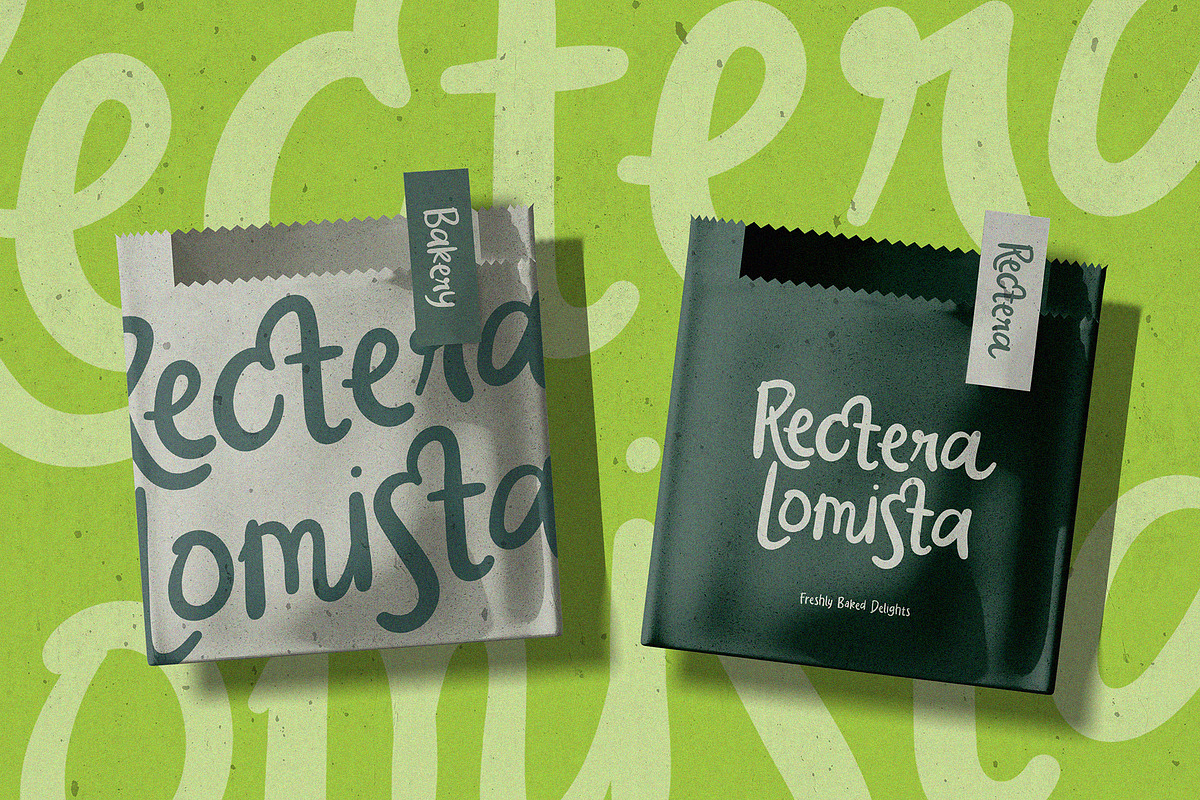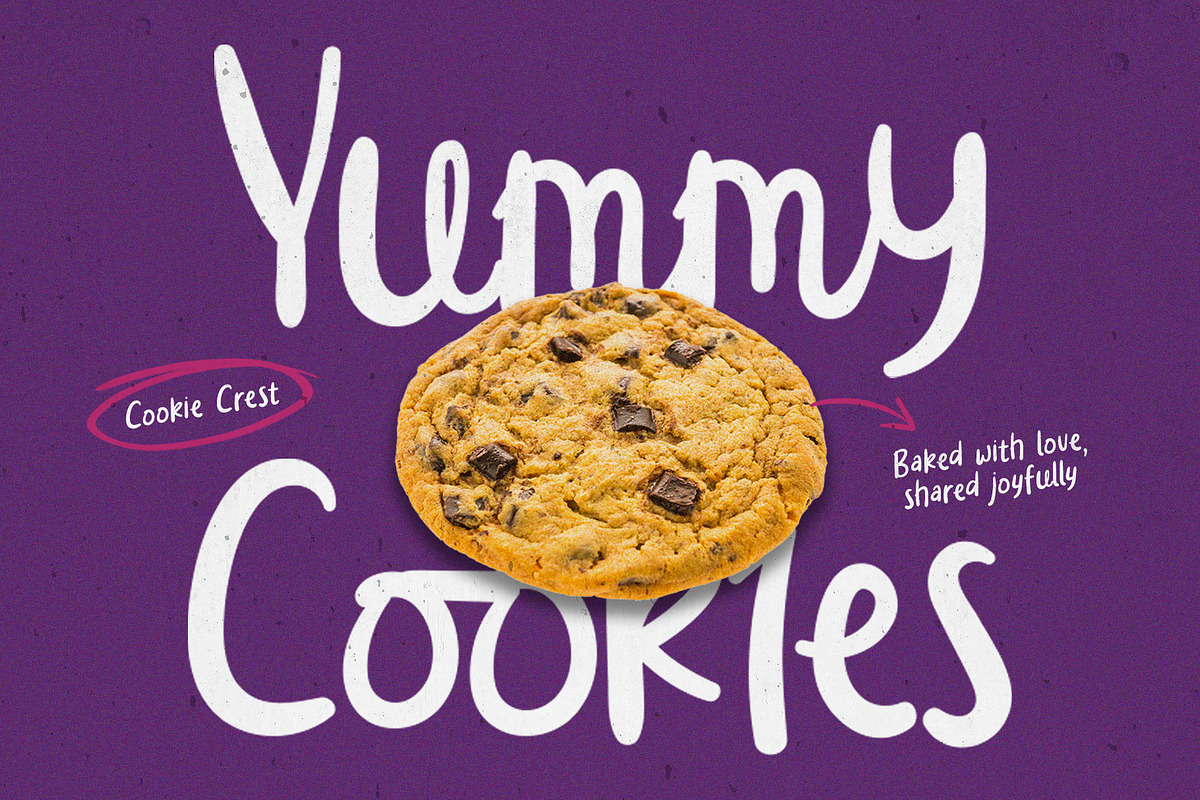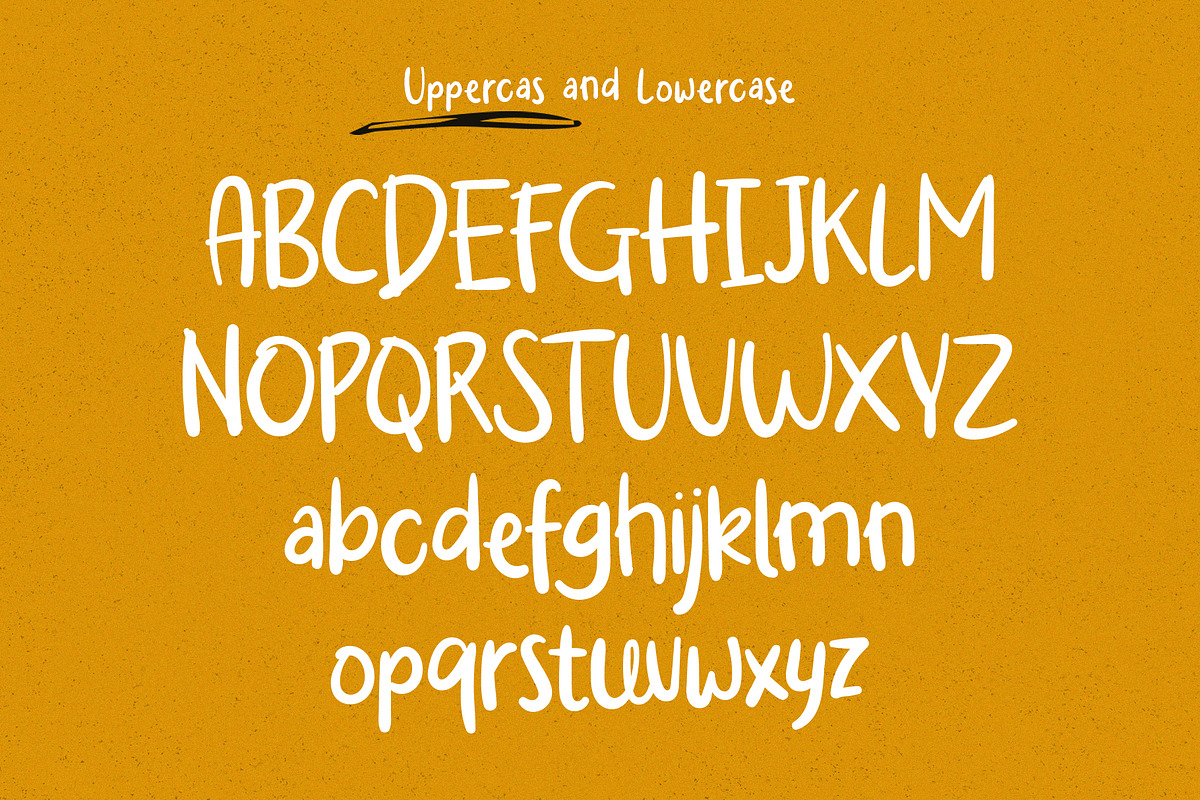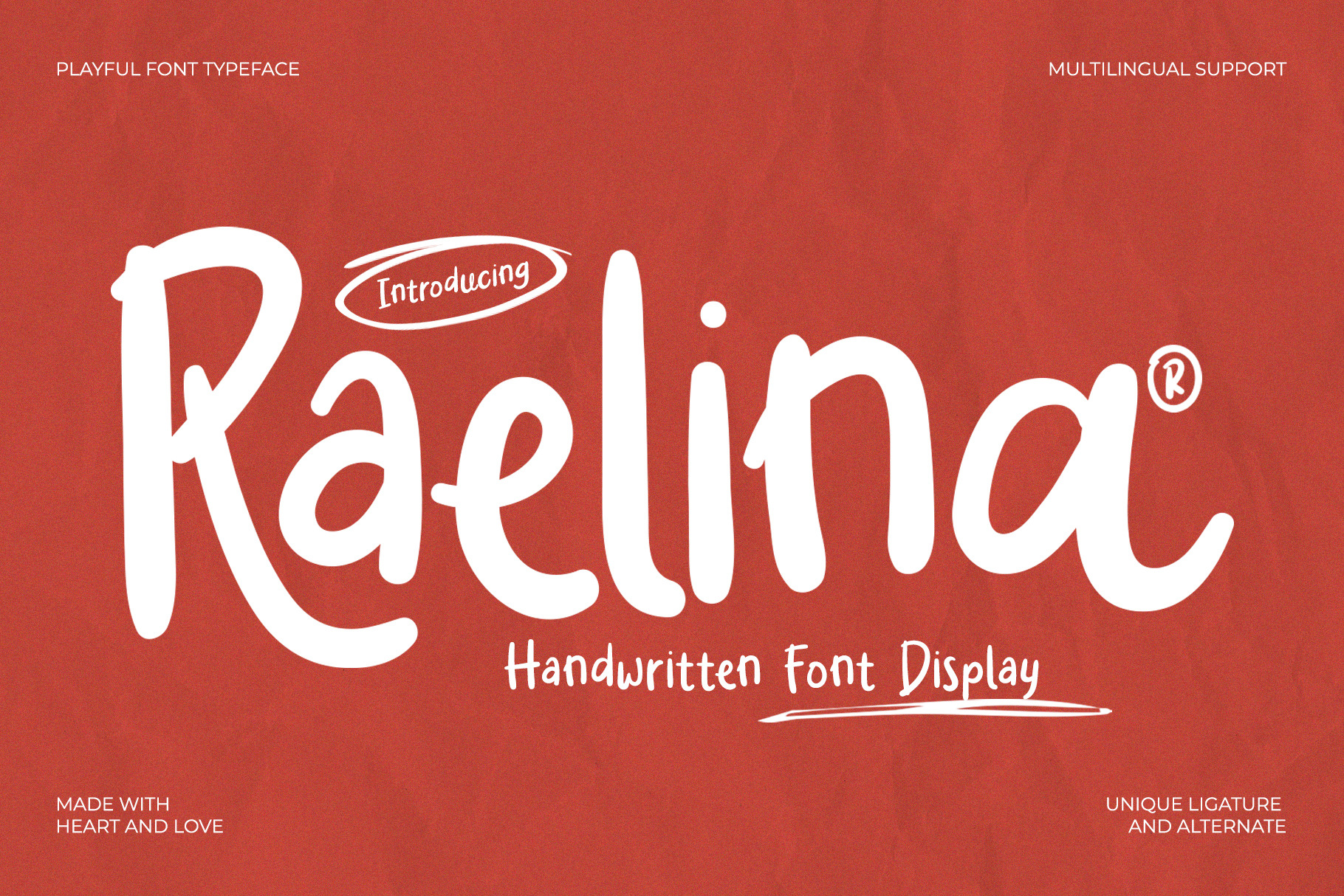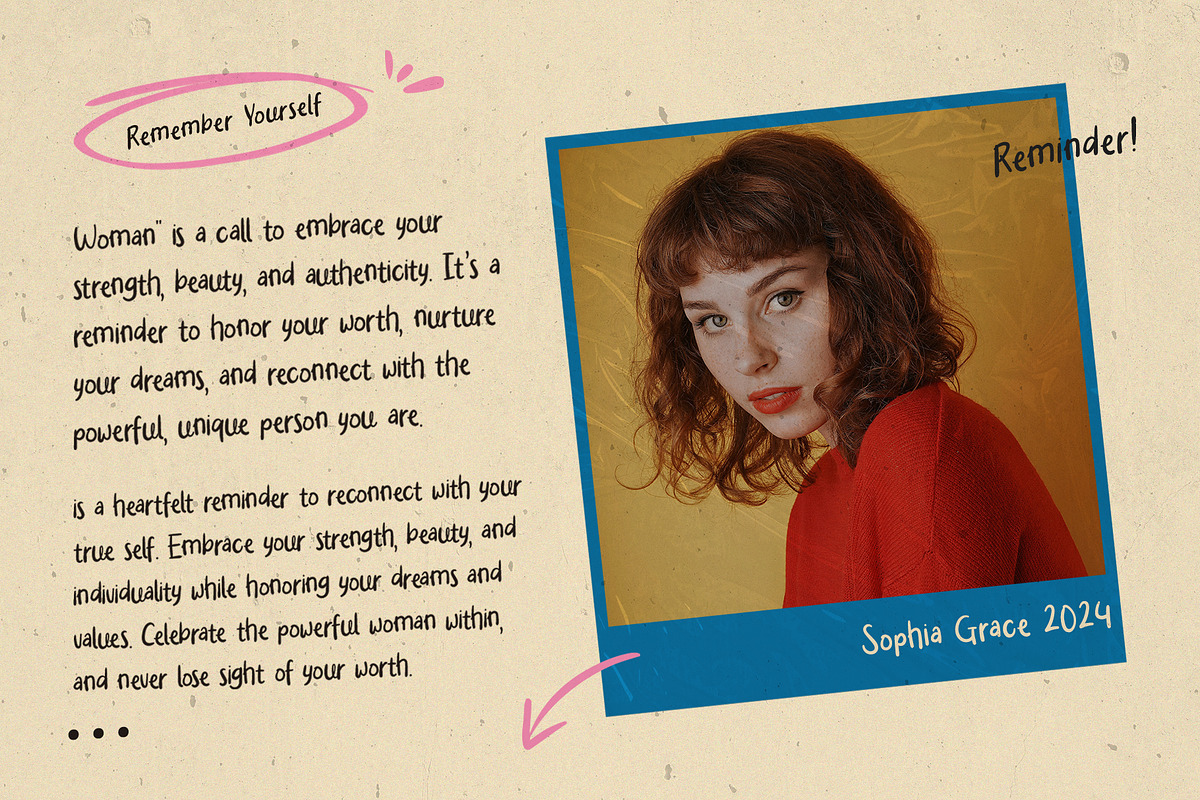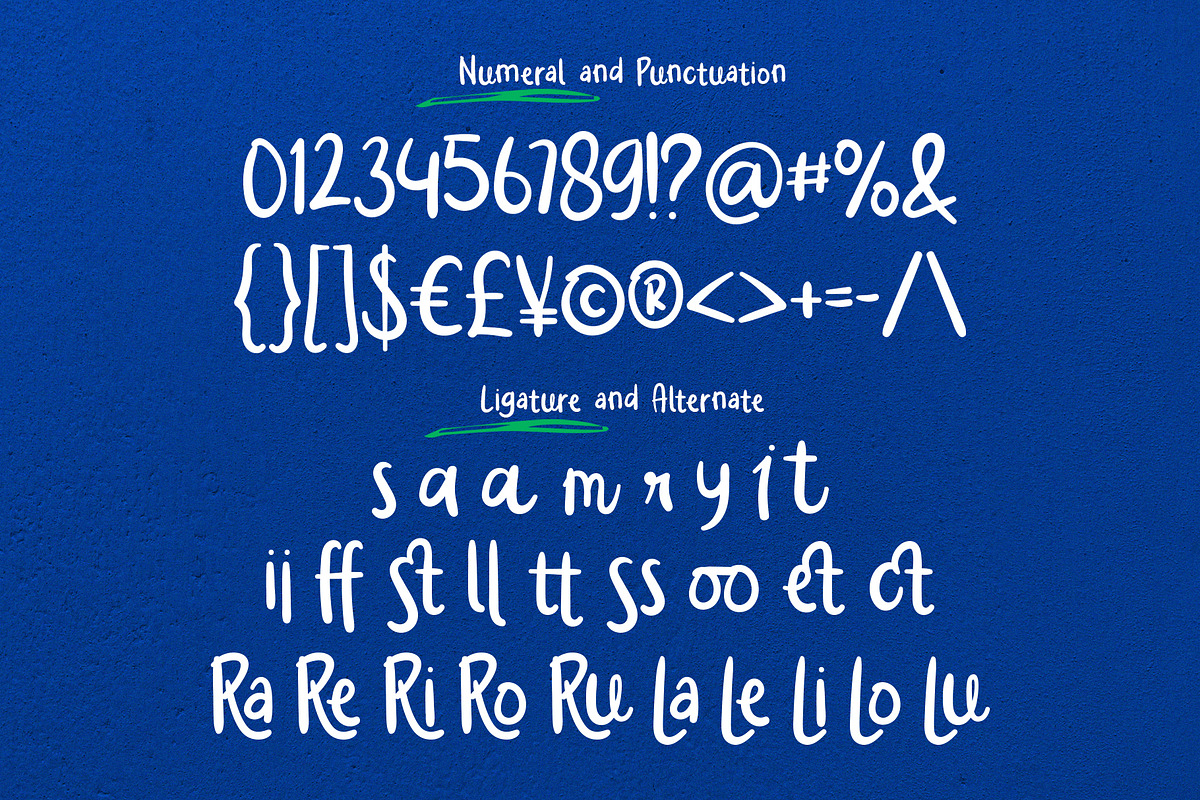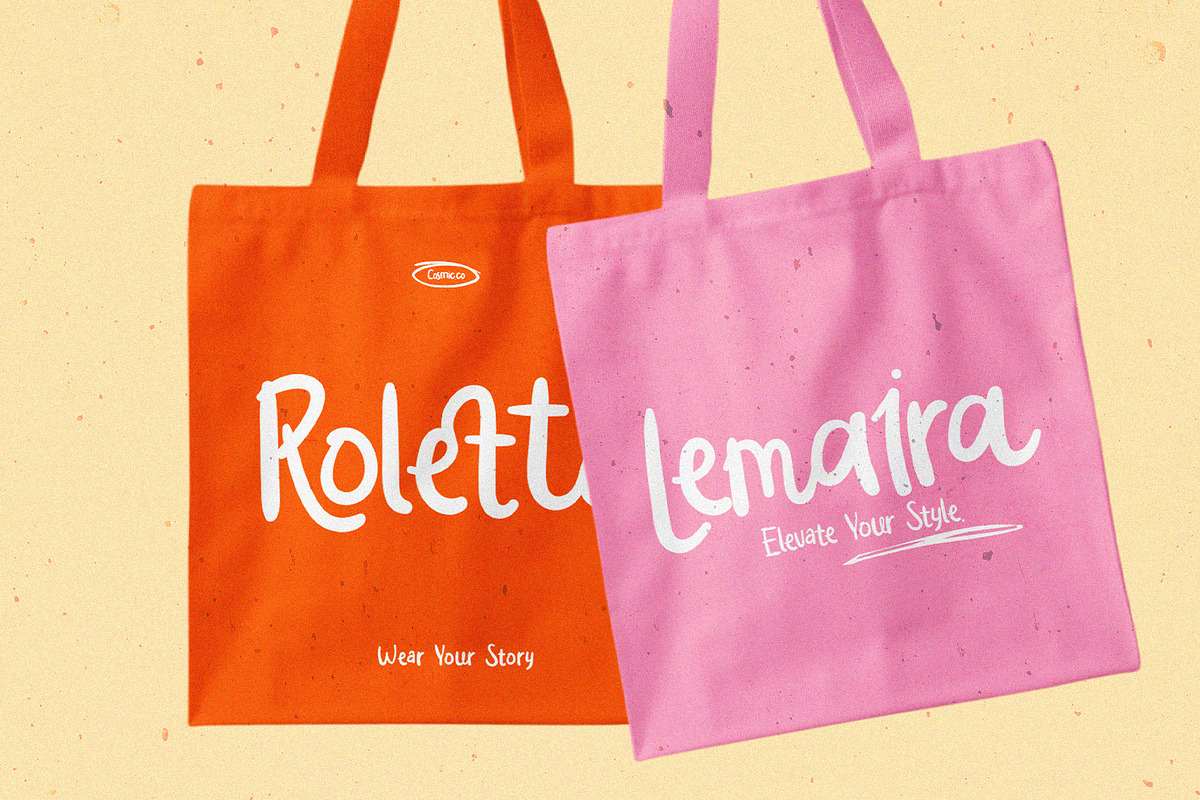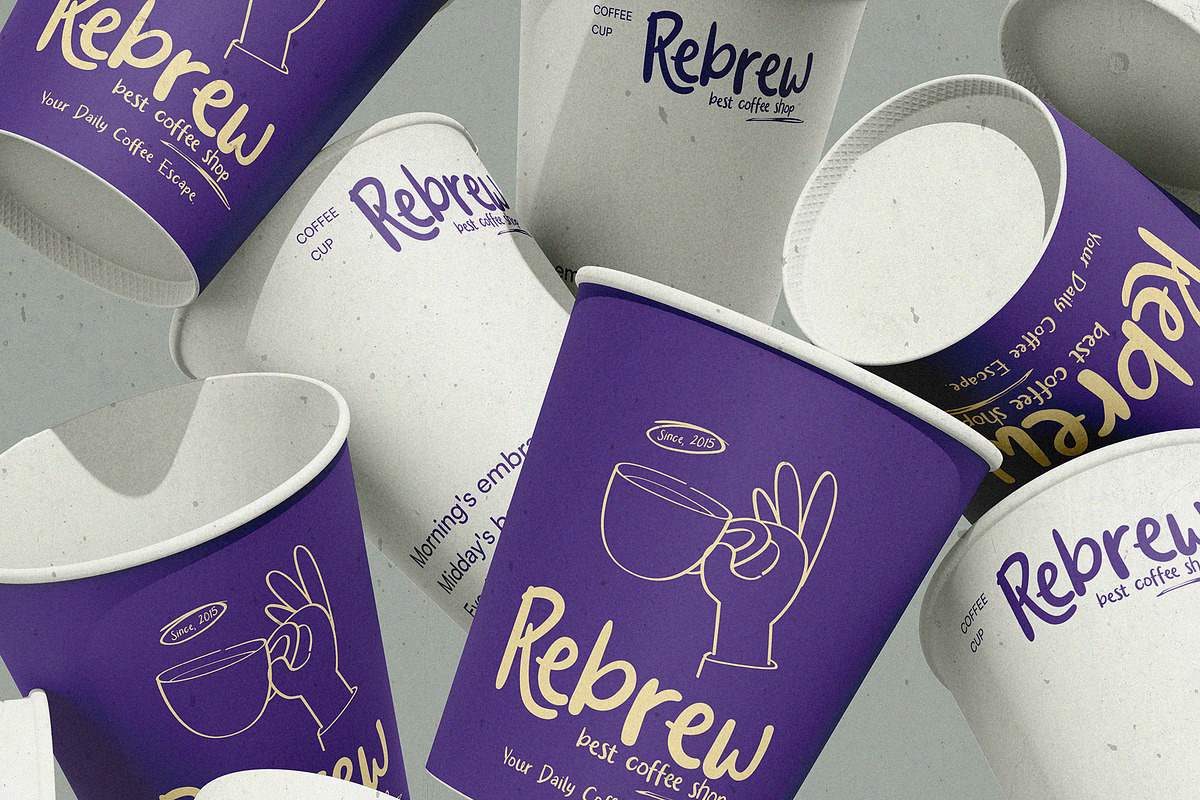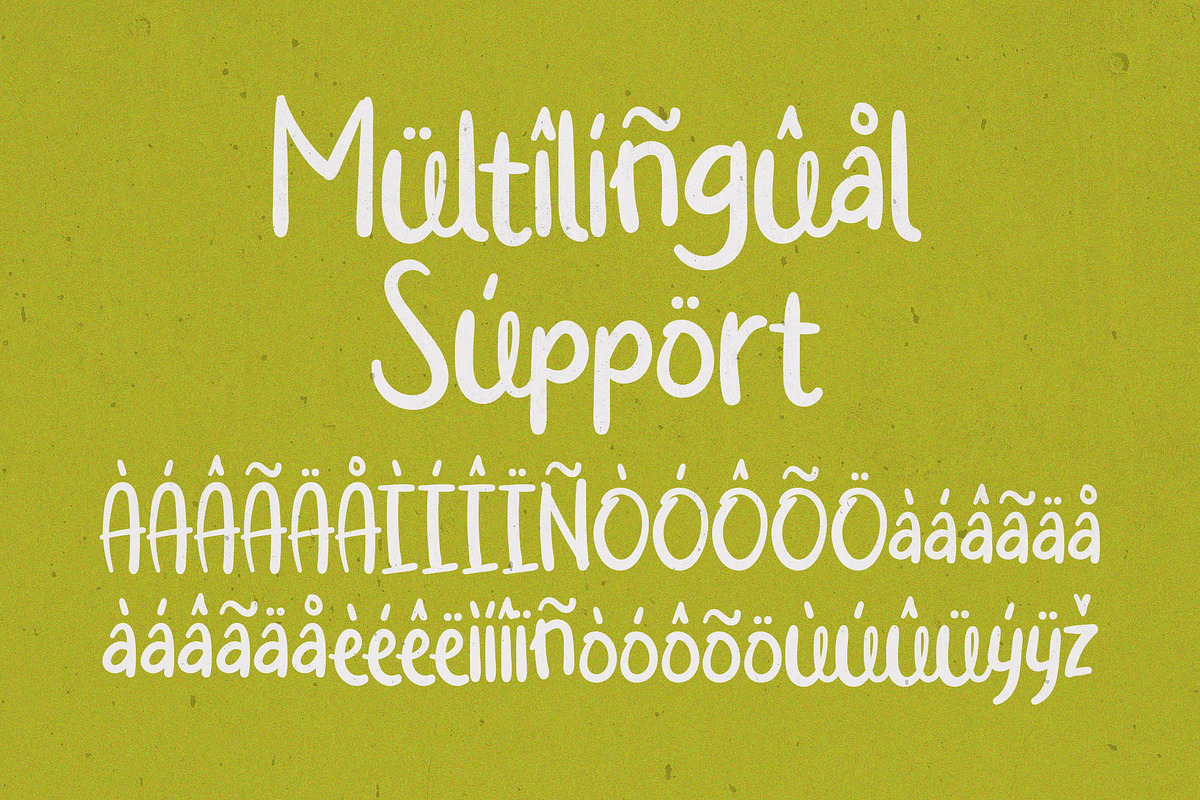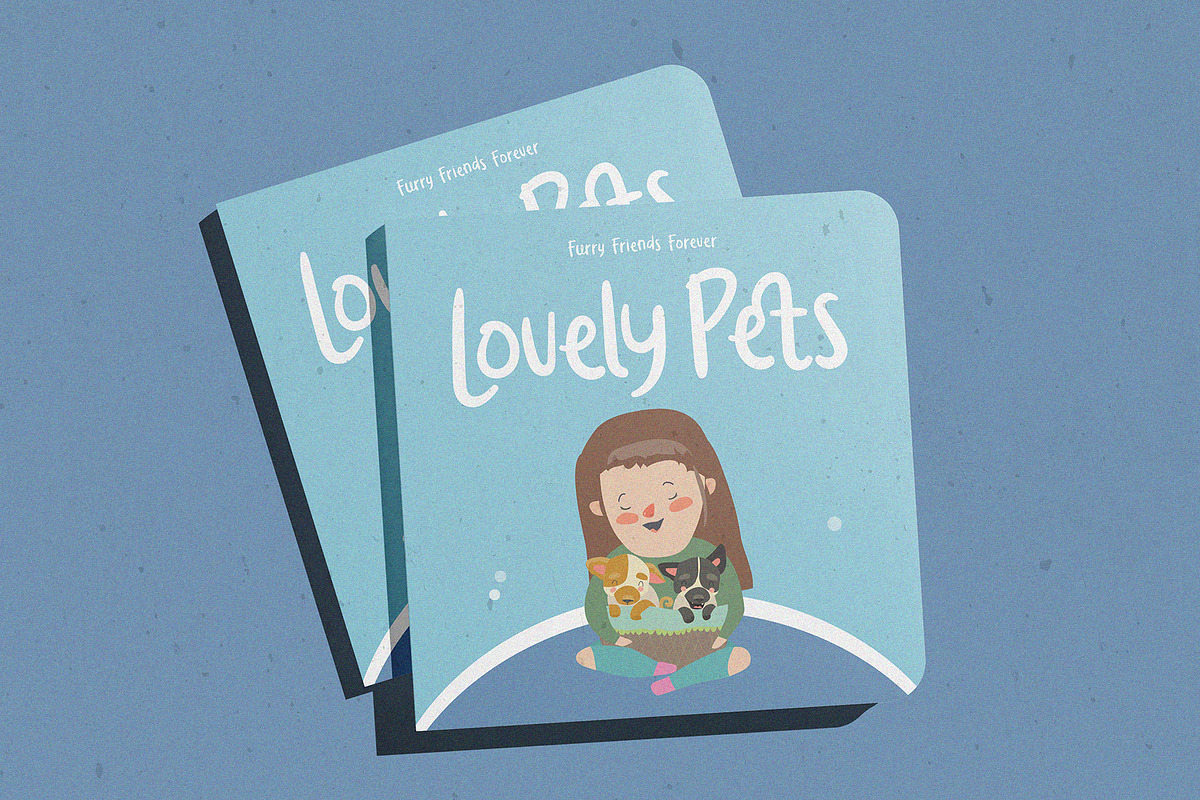
Raelina - Handwritten Font Display
Raelina is a playful handwritten display typeface designed with smooth strokes, organic curves, and a warm handmade personality. Its naturally irregular letterforms create a friendly and approachable appearance while maintaining enough structure for professional creative projects.
Inspired by casual handwriting, lifestyle graphics, colorful stationery, and contemporary playful branding, Raelina brings personality and charm to every composition.
Raelina combines expressive handwriting with bold display proportions. Its tall uppercase characters create recognizable focal points, while the lowercase forms provide a relaxed and natural rhythm.
The font includes uppercase and lowercase characters, numerals, punctuation, multilingual support, ligatures, and alternate character forms. These features make Raelina flexible for creating logos, headlines, packaging titles, quotes, posters, and personalized lettering compositions.
Use Raelina with colorful palettes, handmade textures, illustrations, photography, or minimal layouts for a fresh and playful visual identity.
Uppercase characters A–Z
Lowercase characters a–z
Numerals 0–9
Standard symbols and punctuation
Stylistic alternate characters
Ligature combinations
Multilingual accented characters
Playful handwritten display style
Natural handmade letterforms
Smooth and organic stroke movement
Friendly and expressive personality
Uppercase and lowercase alphabet
Complete numerals
Standard symbols and punctuation
Unique ligatures and alternate characters
Multilingual character support
Strong readability at medium and large sizes
Suitable for print and digital applications
Ideal for logos, headlines, names, and short phrases
Works beautifully with lifestyle, stationery, and playful branding
Easy to pair with clean sans serif fonts
Multilingual Support: Western European characters with diacritics (À, Á, Â, Ç, É, Ñ, Ø, Ü, etc.)
Use Raelina at medium or large sizes to showcase its handmade details and expressive letterforms. It works best for logos, headlines, poster titles, packaging, quotes, and short phrases rather than long body text.
Pair Raelina with a clean sans serif font for descriptions, captions, product details, and supporting information.